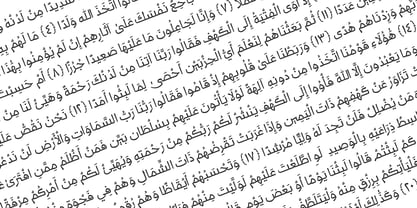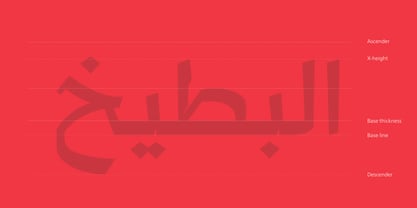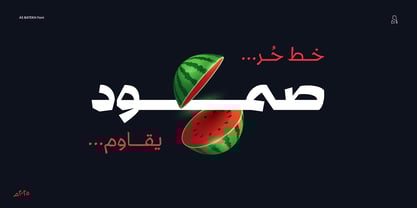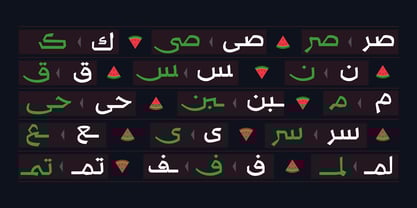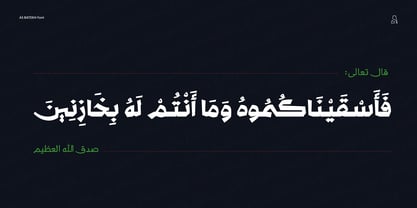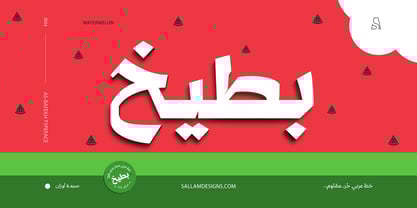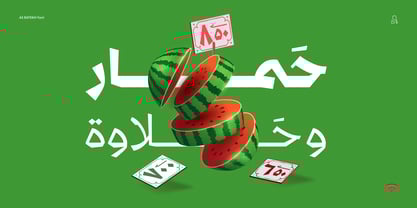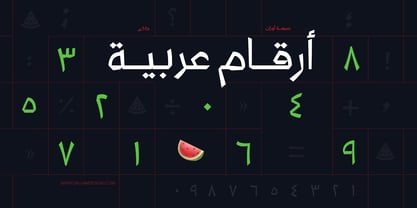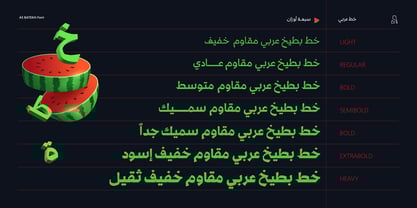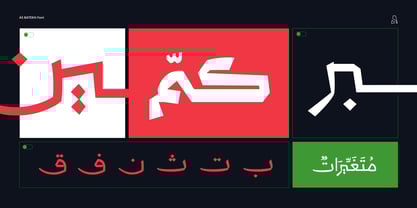
AS Batekh
Die Schriftfamilie AS Batekh wurde von Ahmed Sallam entworfen und von Sallam Type veröffentlicht. AS Batekh enthält 7 Stile und Familienpaketoptionen.
AS-BATEKH is a contemporary Arabic font, drawn and constructed carefully Font design is inspired by the ARABIC calligraphic style.
AS-BATEKH Its structure is equal and visually controlled. Character forms are a combination of vertical straight lines that integrate visually with soft angles in some areas. This makes it a line of nature suitable for today's technological and visual development. The variations and weights of this font are suitable to use companies in their names and appearance and also suitable with the titles and logos. It is also used in all the requirements of advertising and long texts, in headlines, logotypes, branding, books, magazines, motion graphics, web, and Tv.
AS-BATEKH consists of 7-weight versions from Thin to Heavy.
an Arabic typeface that elegantly blends tradition with modernity. It stands out with its sleek design and use of geometric lines, giving it a distinctive and appealing character. Featuring opentype functionalities such as alternate glyphs and ligatures, it offers users a unique experience in Arabic typography.